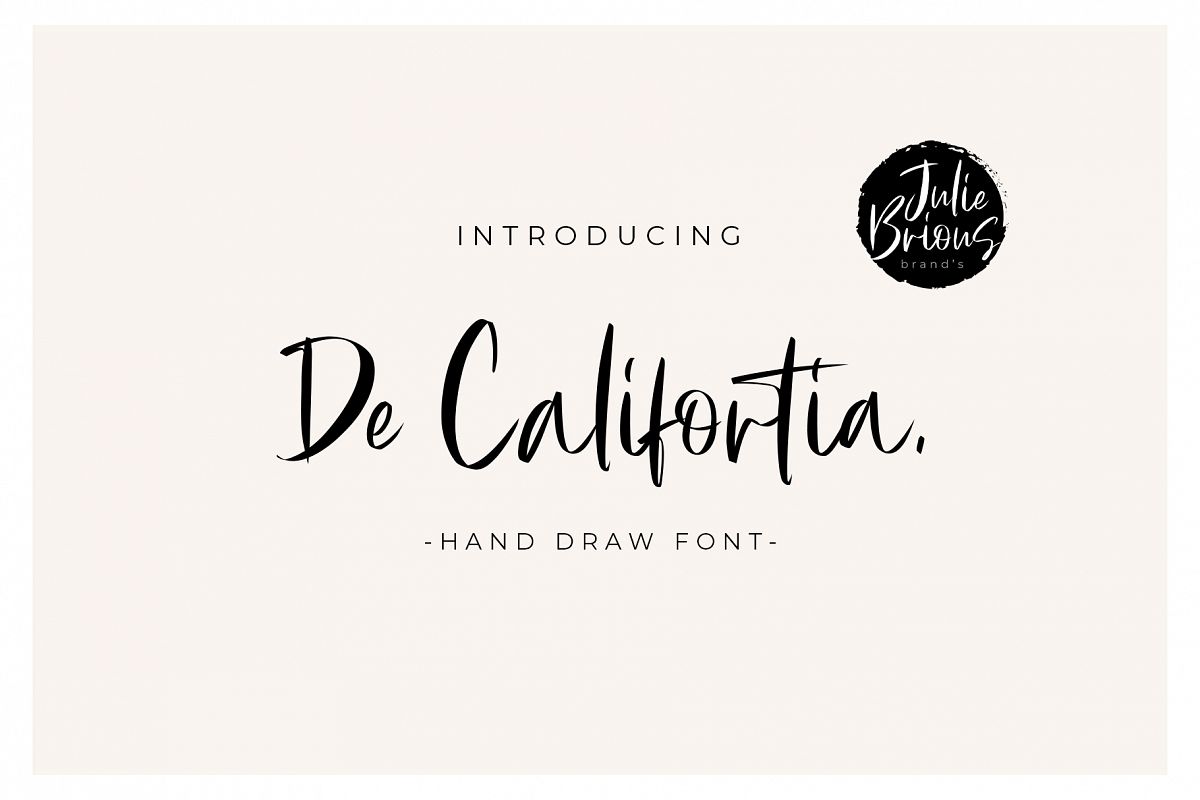
De Califortia Script
"De Califortia Script" is a handwritten signature typeface. Its classy energetic look makes it the perfect fit for feminine logos, printed quotes, invitation cards, social media headers, product packaging and a lot more!Here is what you get in the download:
• Ligatures Collection
• Upper + Lowercase / Alternate